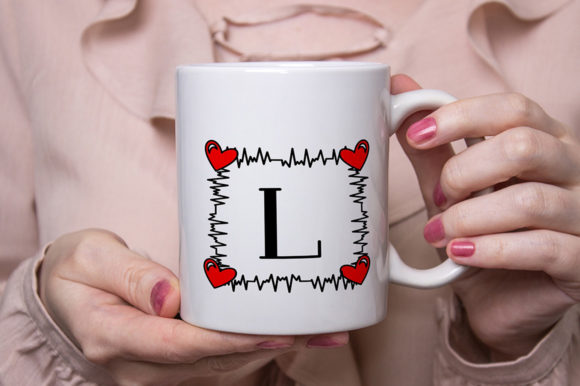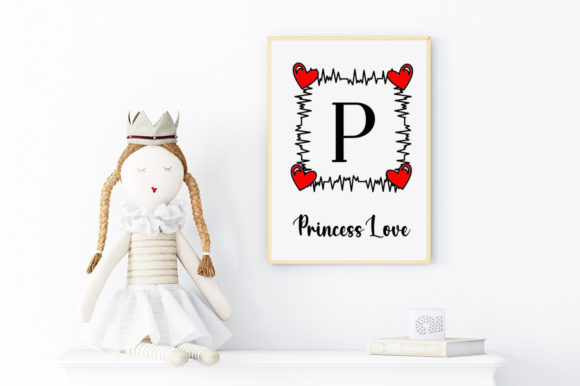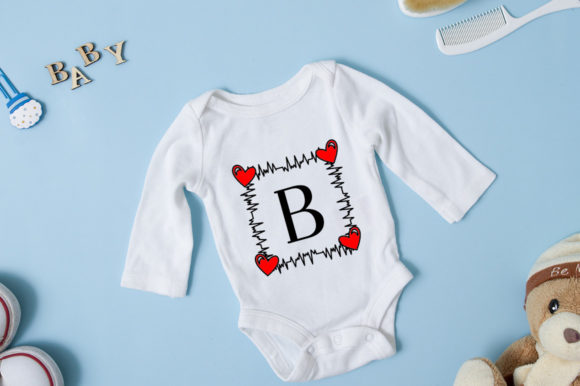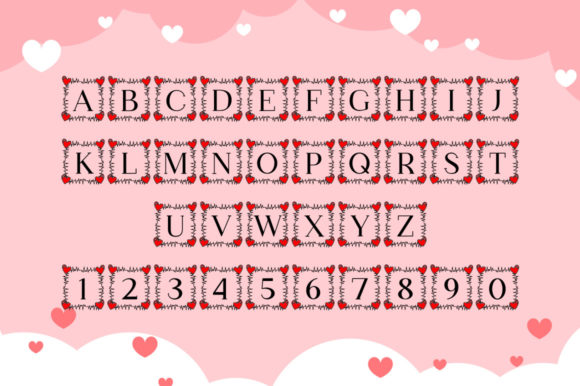
Introduction to Heart Monogram Font
Have you ever stumbled upon a design project that sparks joy and makes you want to create something special? For many designers, that moment comes when they discover the perfect font to elevate their creative vision. For me, that moment arrived when I found the Heart Monogram Font – a stunning, playful, and charming decorative font that is as beautiful as it is easy to remember.
As a design enthusiast, I was immediately drawn to the Heart Monogram Font’s versatility and charm. This high-quality font is perfect for a wide range of design occasions, from logos and apparel to photography and watermarks. Its transparent background and free download option make it an invaluable resource for designers looking to add a touch of whimsy to their creative projects.
Key Features of Heart Monogram Font
- Unique, hand-drawn design perfect for creative projects and personal expression.
- High-quality, vector-based font with a transparent background, ideal for various design applications.
- Monogram font with a heart shape, adding a touch of whimsy and romance to any design project.
Honest Review: Heart Monogram Font
I recently stumbled upon the Heart Monogram Font, and I must say it’s a unique addition to any creative project. The font is a beautiful blend of elegance and playfulness, making it perfect for designers looking for a high-quality design resource.
One of the standout features of this font is its versatility. It’s perfect for use on its own or in combination with other fonts to create a stunning visual effect. The transparent background allows for seamless integration with other design elements, making it a great choice for designers who value simplicity and flexibility.
- High-quality design with a unique touch
- Perfect for creative projects that require a touch of elegance
- May not be suitable for projects that require a bold, edgy font
- Some users may find the font too delicate for certain design applications
Overall, the Heart Monogram Font is a great addition to any designer’s toolkit. While it may have some limitations, its unique design and versatility make it a valuable resource for creative projects. With a little creativity, this font can help take your designs to the next level.
Heart Monogram Font is commonly used in creative projects, such as wedding invitations, birthday cards, and social media graphics. Its high-quality design and transparent background make it an ideal choice for designers looking to add a touch of elegance and sophistication to their work.